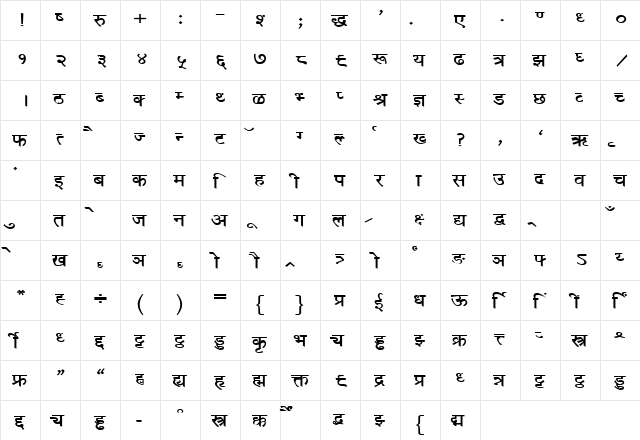
DEV006 Normal
Design Context for DEV006 Typeface
DEV006 offers clean, dependable letterforms without strong stylistic allegiance, making it a practical choice for designers who need flexibility.
Pro Tip: Use DEV006 in both headline and body roles to test its range before committing to a single application.